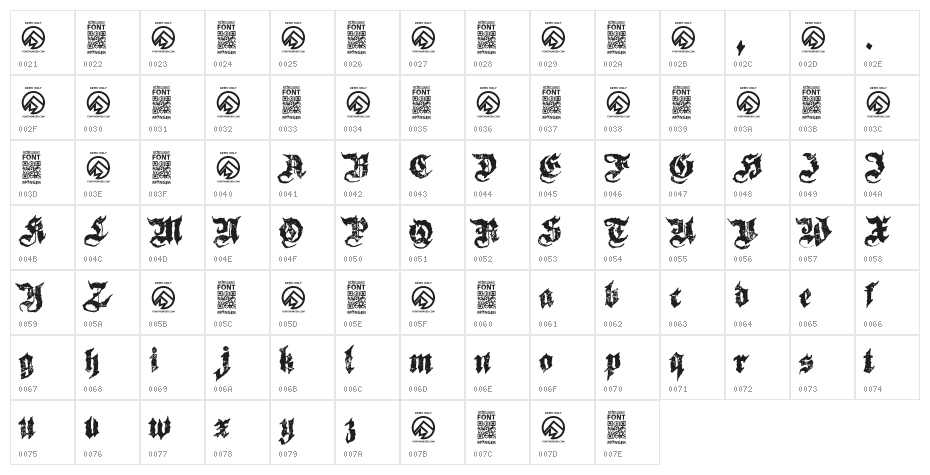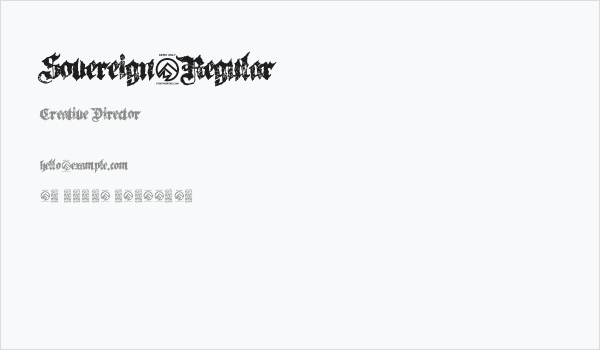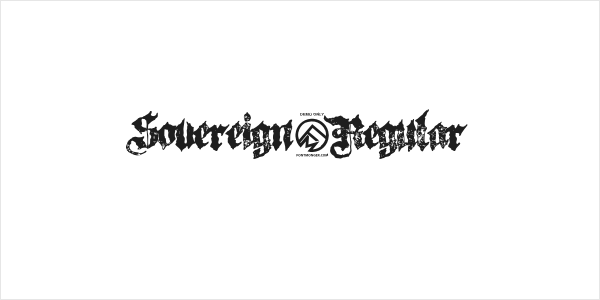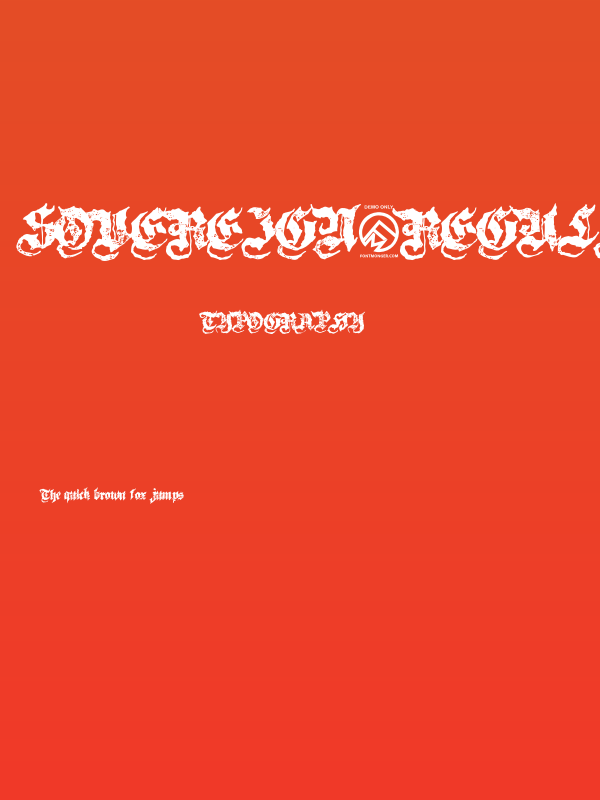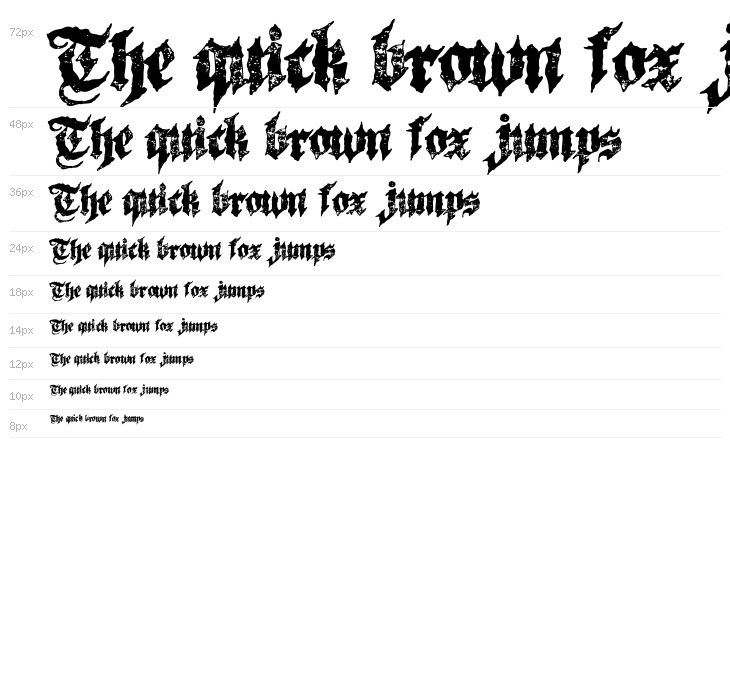
Sovereign-Regular Font
Sovereign-Regular Description
This font features a bold, distressed Gothic style with intricate detailing and a textured appearance. The uppercase and lowercase letters are designed with sharp, angular lines and dramatic flourishes, giving it a medieval and rebellious aesthetic. The characters are heavily stylized, with a rough, worn look that suggests a vintage or grunge influence. The font's unique design makes it stand out, with each letter appearing as if it has been hand-carved or etched, adding to its overall dramatic effect. The special characters maintain the same distressed and bold characteristics, ensuring consistency across all glyphs.
| Overall Style | Vintage, Gothic, Distressed |
| Use Case | Logos, Posters, Decorative Text |
| Proposed Projects | Ideal for projects requiring a dramatic and rebellious aesthetic, such as band logos, tattoo designs, posters, and themed event invitations. |